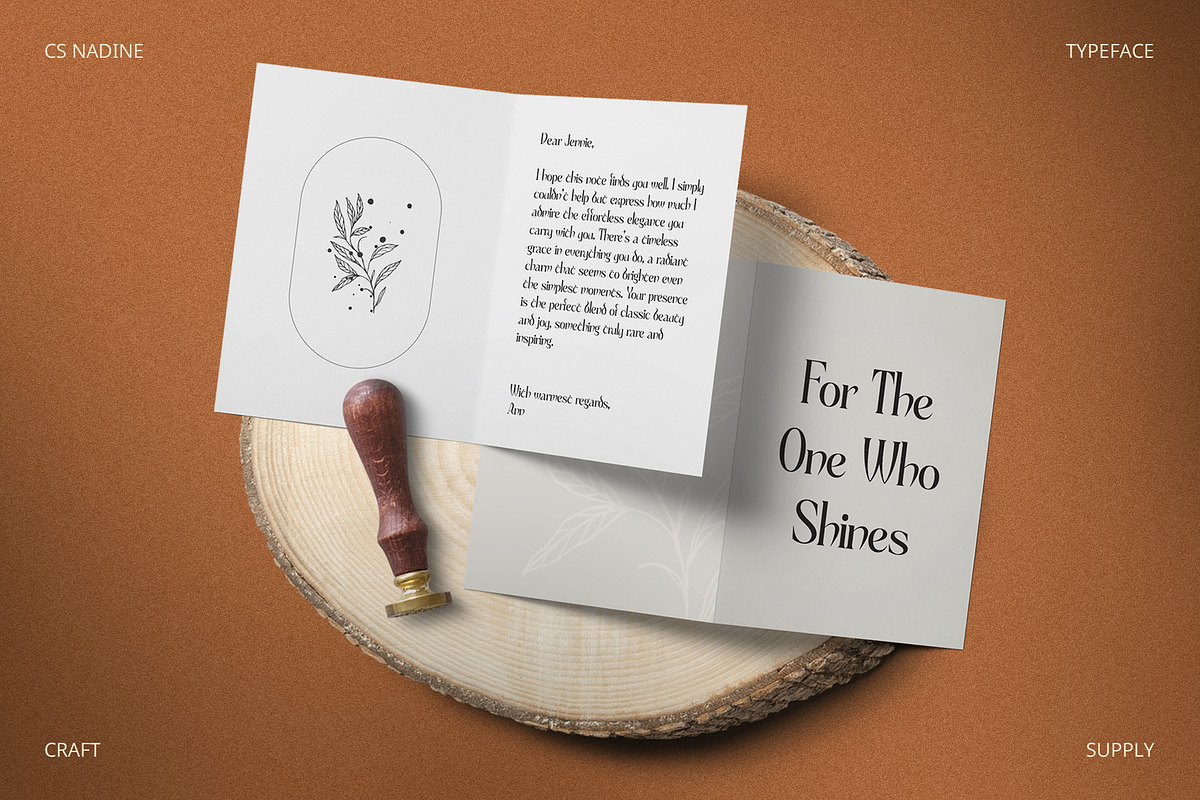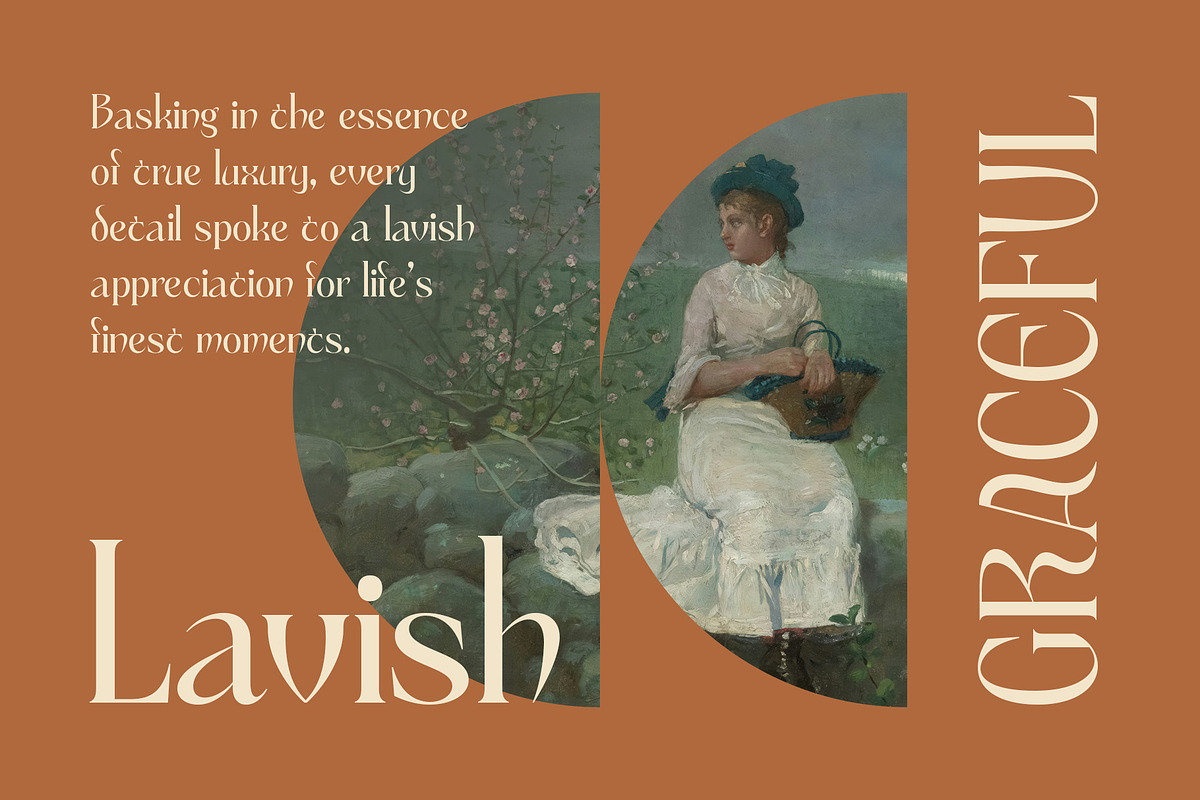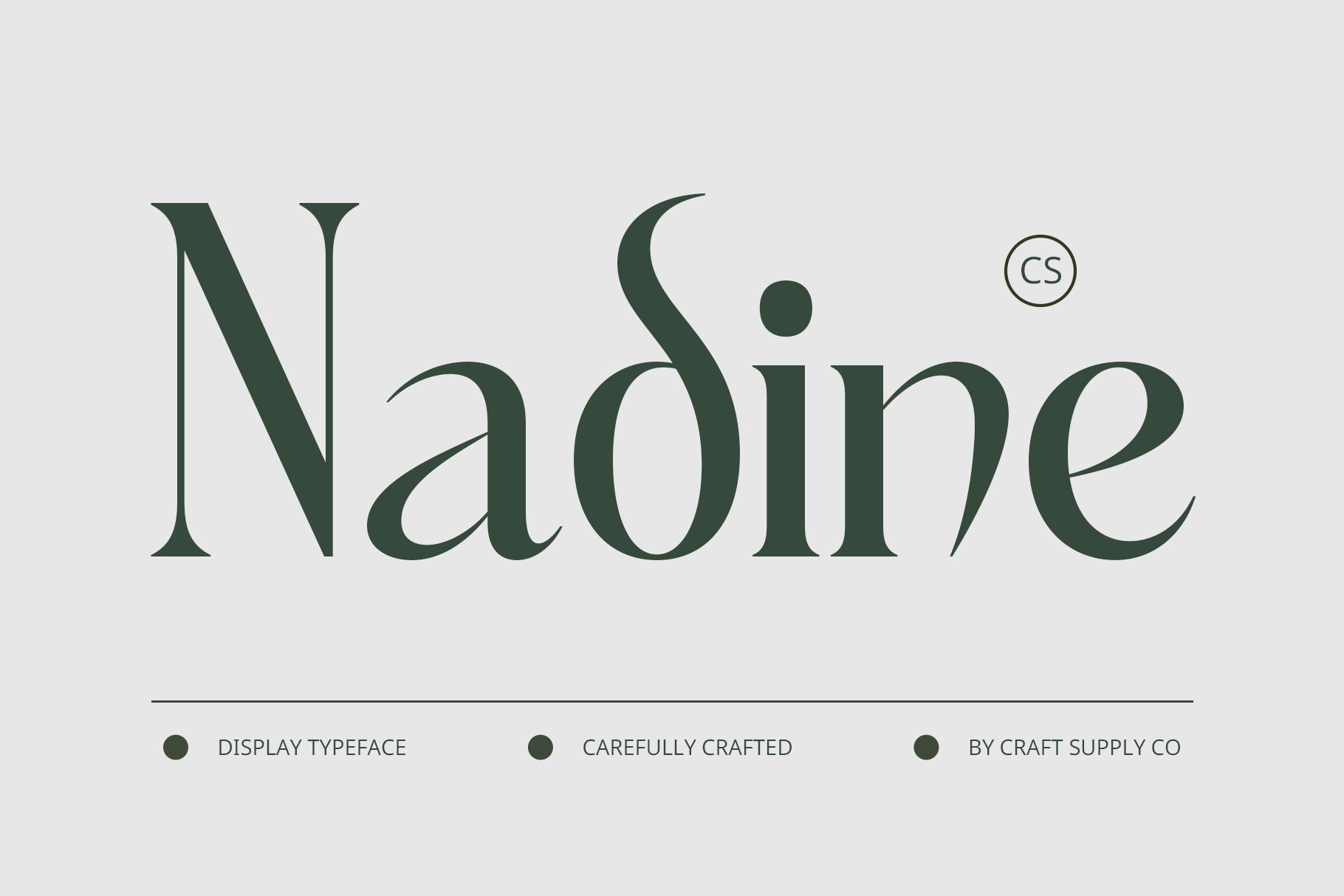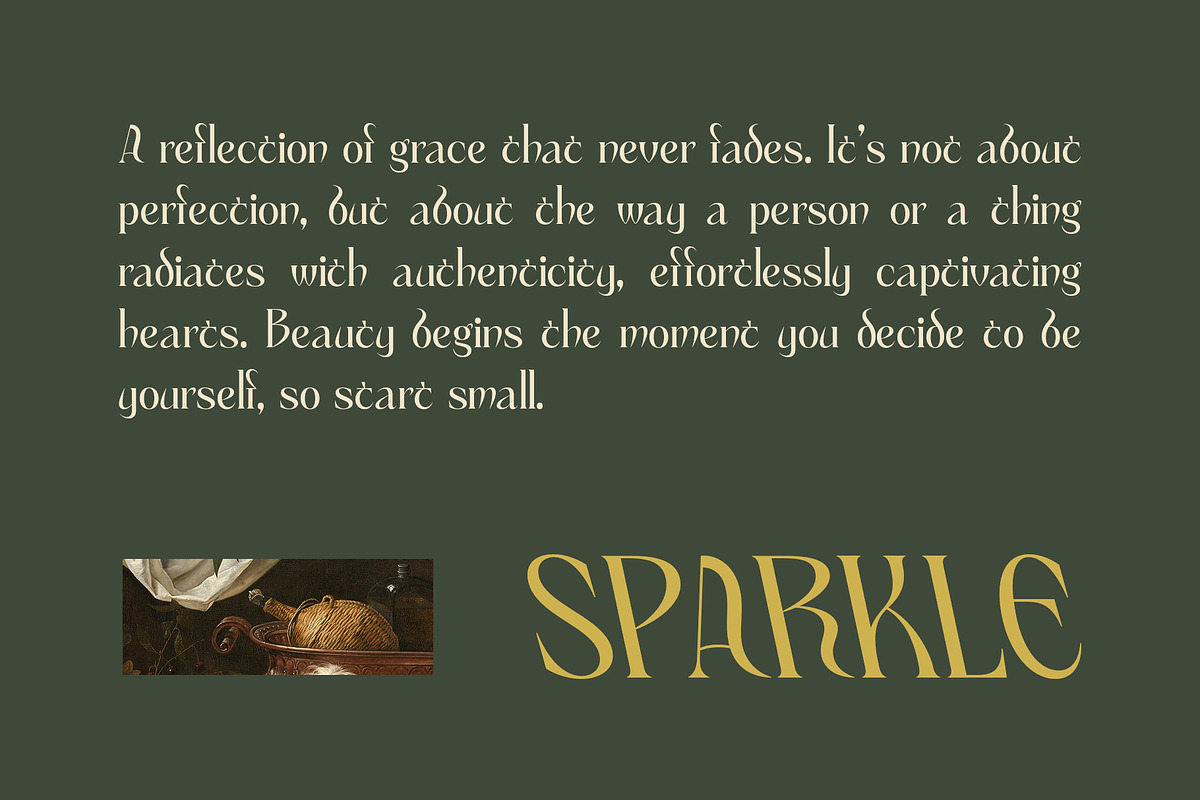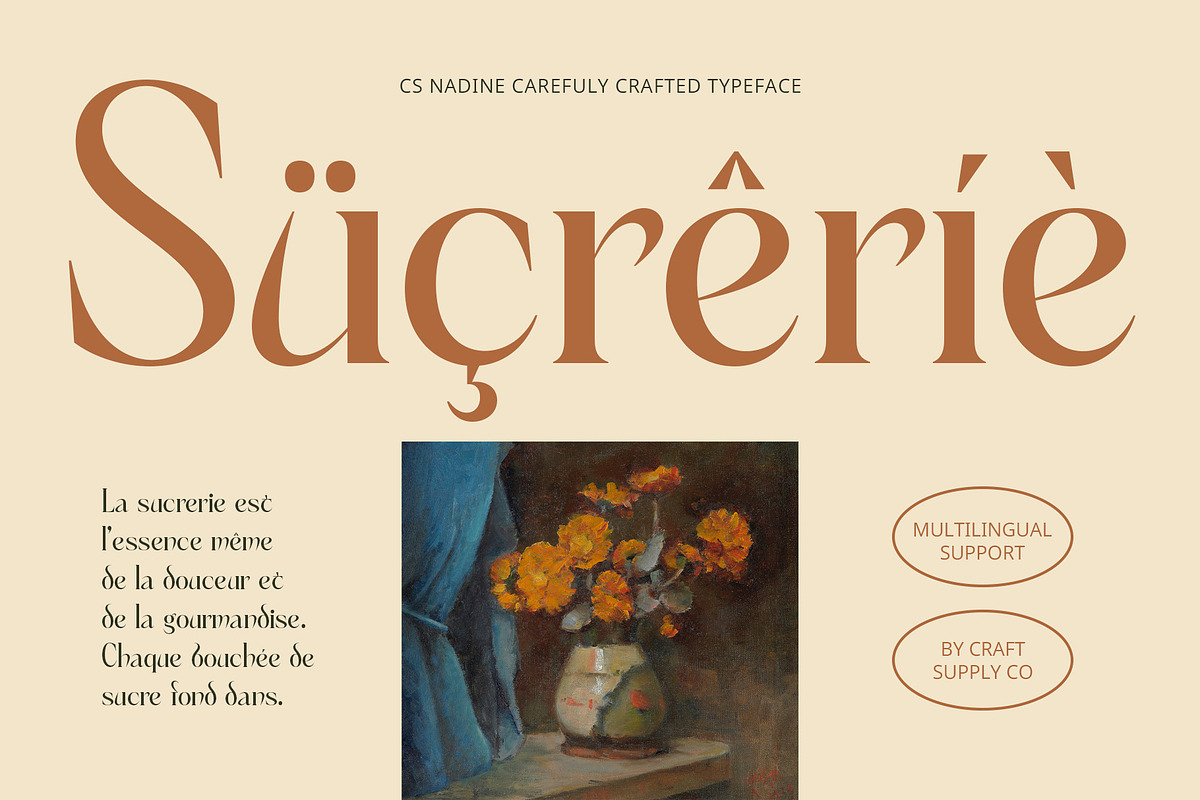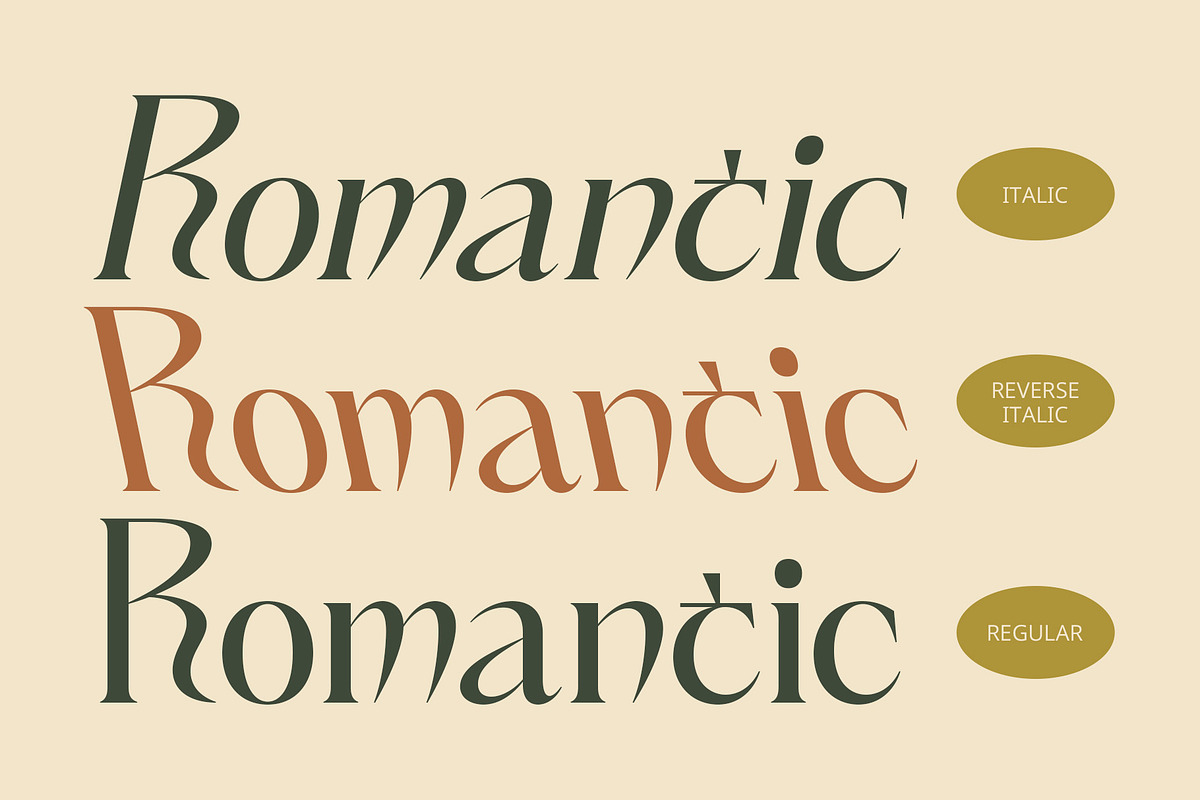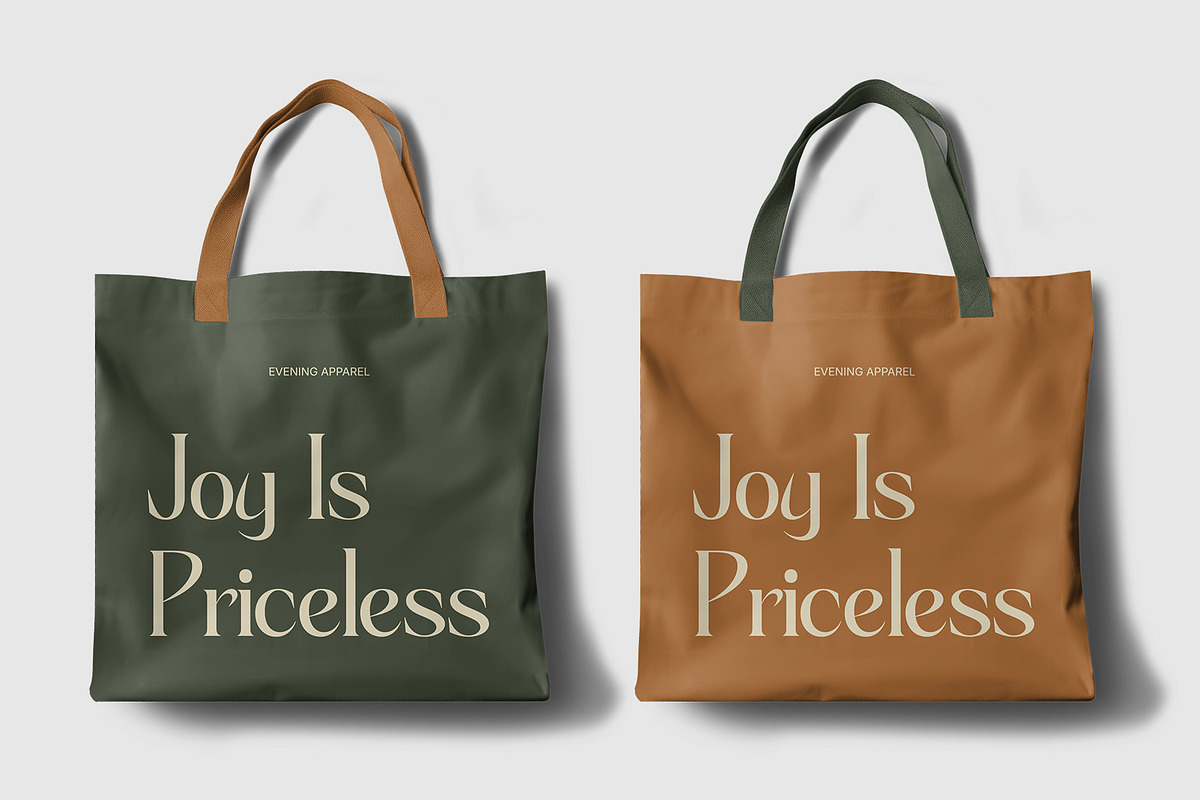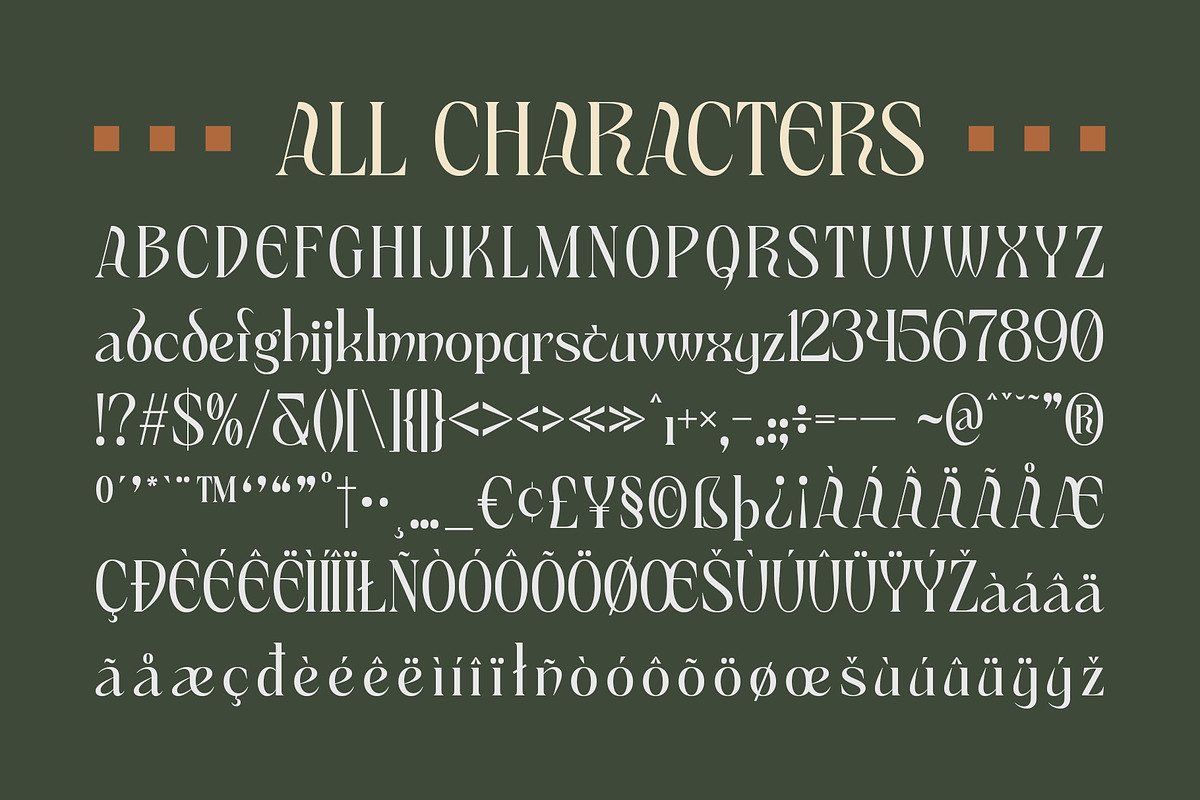
CS Nadine – Uncial Font
CS Nadine – Uncial Font: A Classic Touch of Elegance and Heritage
Medieval-Inspired Display Serif Font CS Nadine is an exquisite display serif font inspired by the beauty of medieval Uncial handwriting. Its elegant, curved letterforms are carefully crafted with harmonious thick and thin strokes, reflecting the artistry and sophistication of ancient script. This font combines the timeless grace of classic calligraphy with the formality of a historical style, making it ideal for projects seeking a refined and distinguished look.
Graceful and Artistic Uncial Style The Uncial style of CS Nadine evokes a sense of antiquity and artistry, with flowing curves that speak to the elegance of ancient manuscripts. The carefully balanced letterforms add a sense of harmony to the design, bringing a soft yet formal impression that suits a wide range of high-end applications. Whether used in luxury branding or formal event invitations, this font offers a timeless beauty that elevates any project.
Perfect for Historical and Luxury Designs CS Nadine brings a touch of classic luxury to any design, making it perfect for formal invitations, historical-themed projects, or designs that require an air of sophistication and prestige. Its rich heritage and graceful strokes make it ideal for projects that wish to convey a sense of tradition and high status. Whether for wedding invitations, vintage-style logos, or elegant editorial work, this font offers a sense of noble charm.